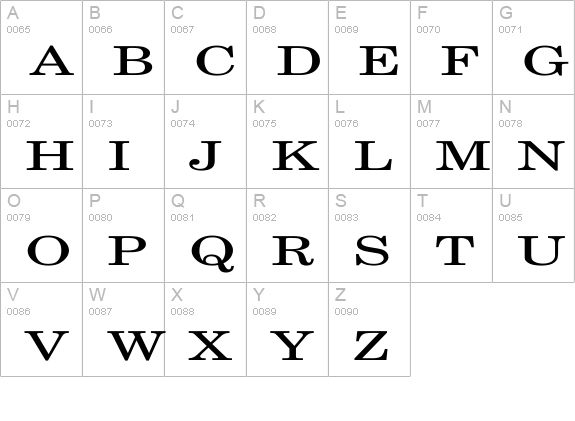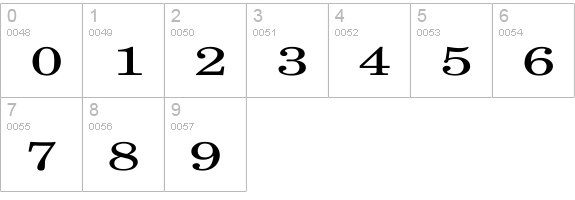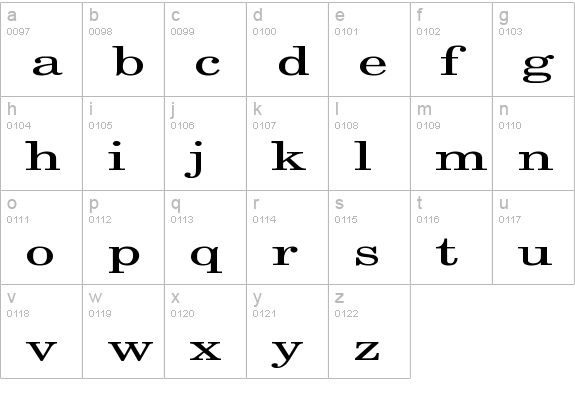
NewCenturySchlbk-Roman Ex Font Details
NewCenturySchlbk-Roman Ex is a classic and elegant serif font that exudes sophistication and timelessness. Its graceful curves and clean lines make it perfect for a wide range of design projects, from formal invitations to professional documents. The font's versatility allows it to be used in both print and digital media, adding a touch of refinement to any layout. What makes NewCenturySchlbk-Roman Ex even more appealing is the fact that it is completely free to download at FontsMarket.com. This means that you can enhance your designs with this beautiful font without any cost. Whether you are a graphic designer, a student, or a small business owner, having access to high-quality fonts like NewCenturySchlbk-Roman Ex can elevate your projects and make them stand out. So why wait? Head over to FontsMarket.com and download NewCenturySchlbk-Roman Ex today to add a touch of elegance and sophistication to your design work.